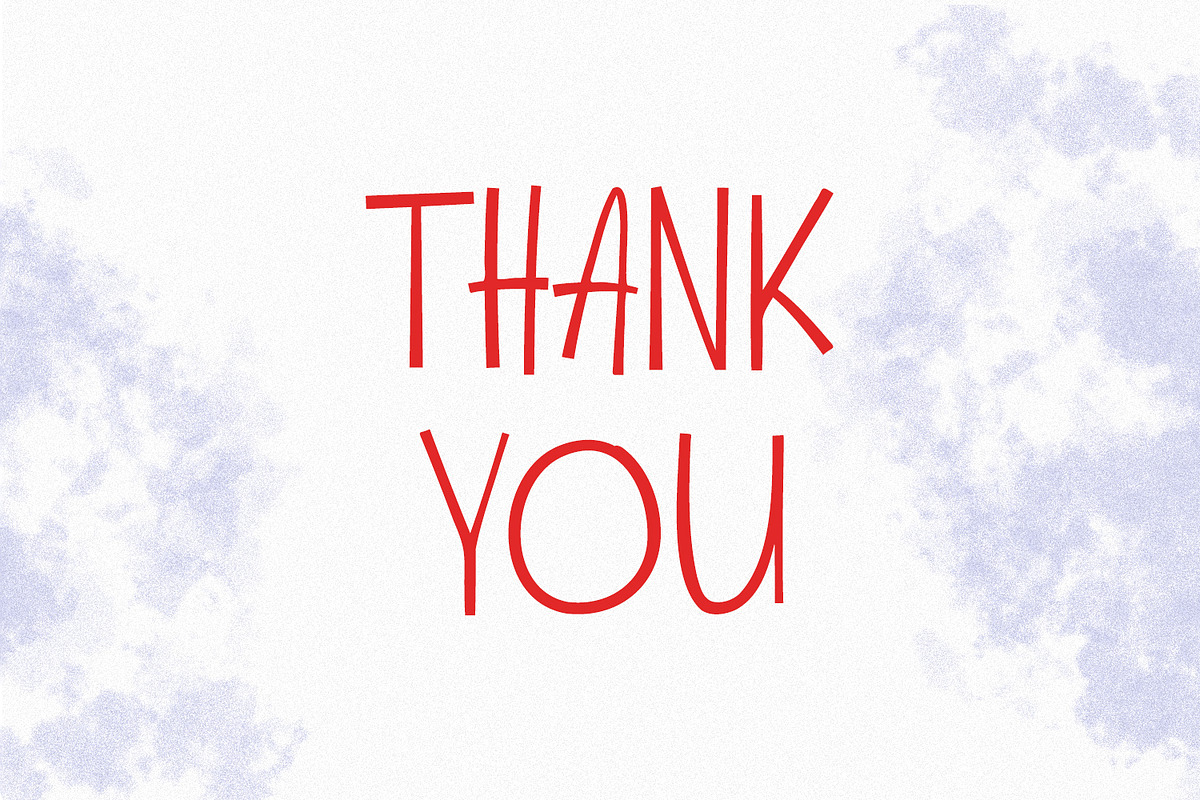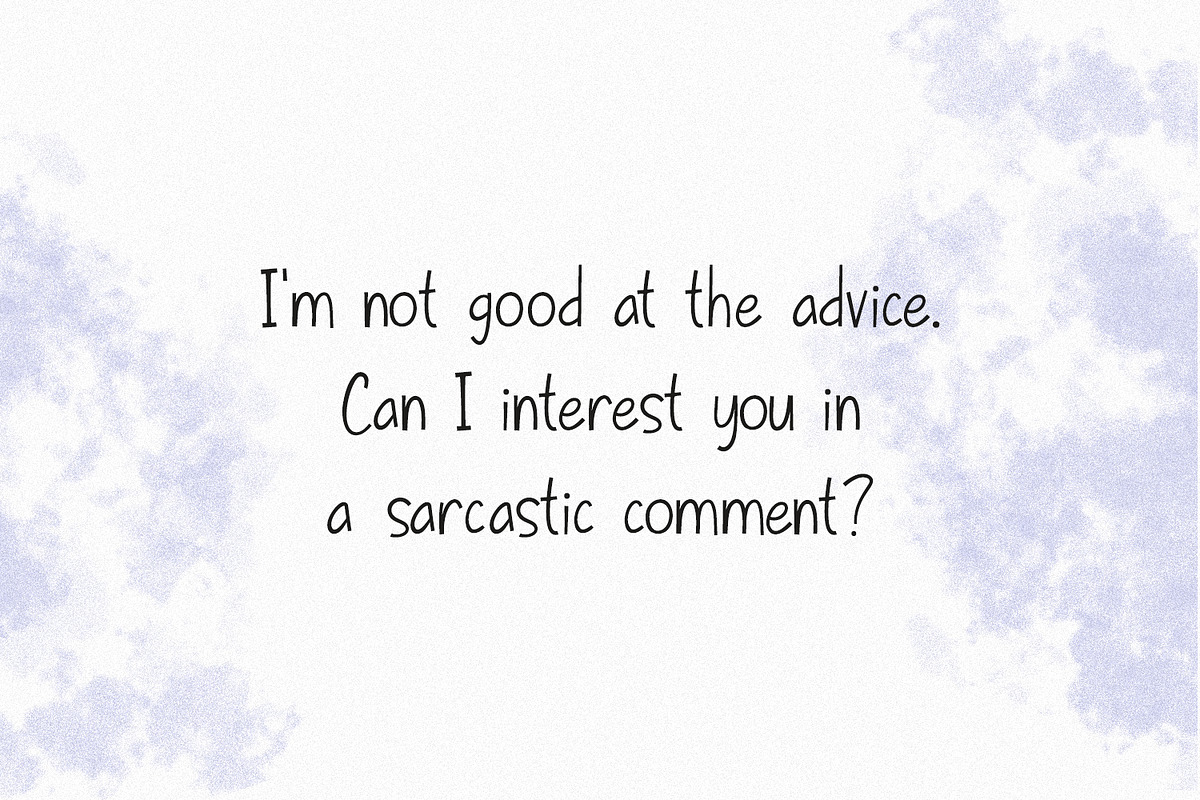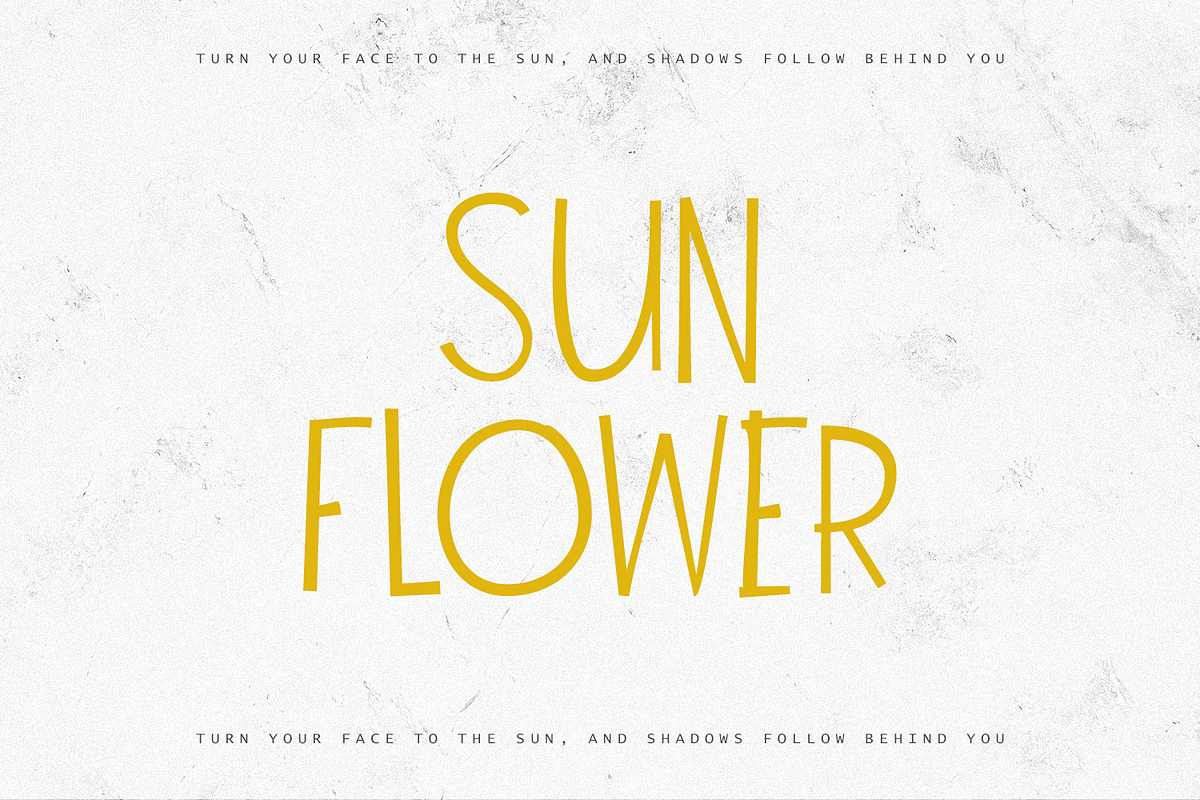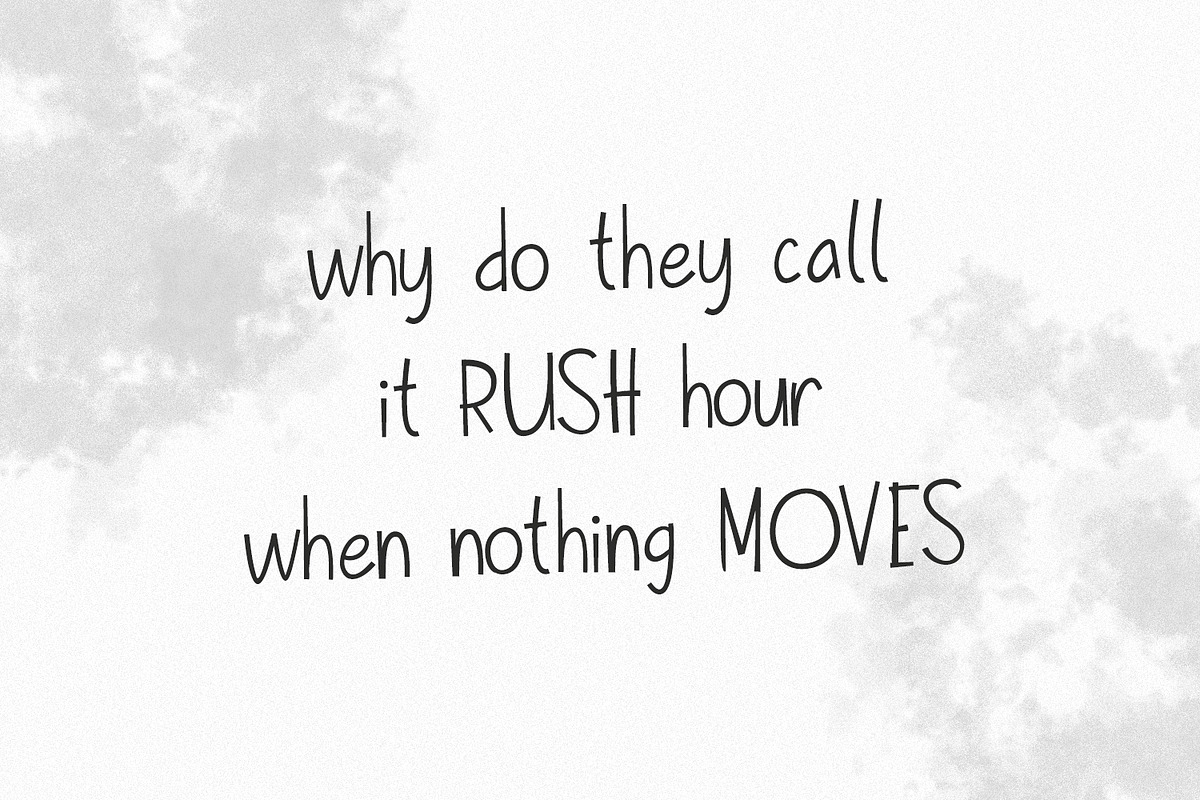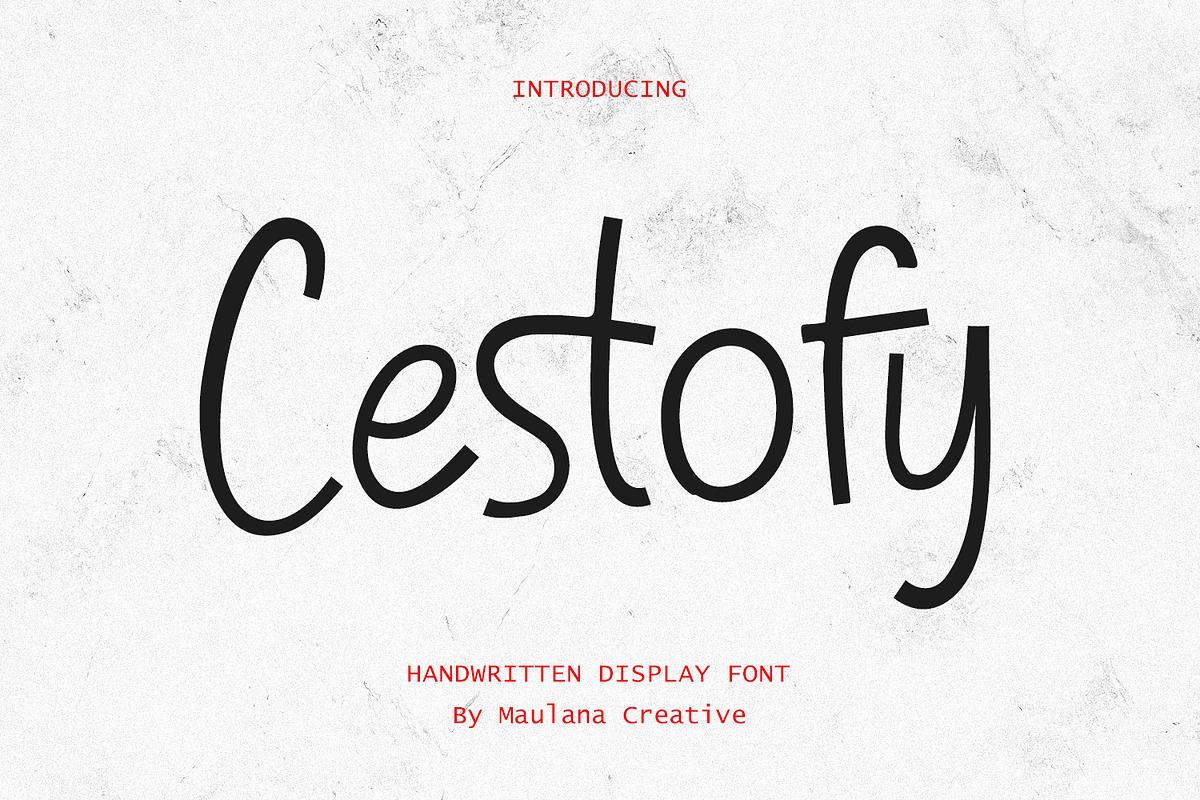
Cestofy Expressive Sans Serif Handwr
Cestofy is a expressive sans display handwritten font. With medium stroke, fun character with a bit of ligature. To give you an extra creative work. Cestofy font support multilingual more than 100+ language. This font is good for logo design, Social media, Movie Titles, Books Titles, a short text even a long text letter and good for your secondary text font with sans or serif. Make a stunning work with Cestofy font.